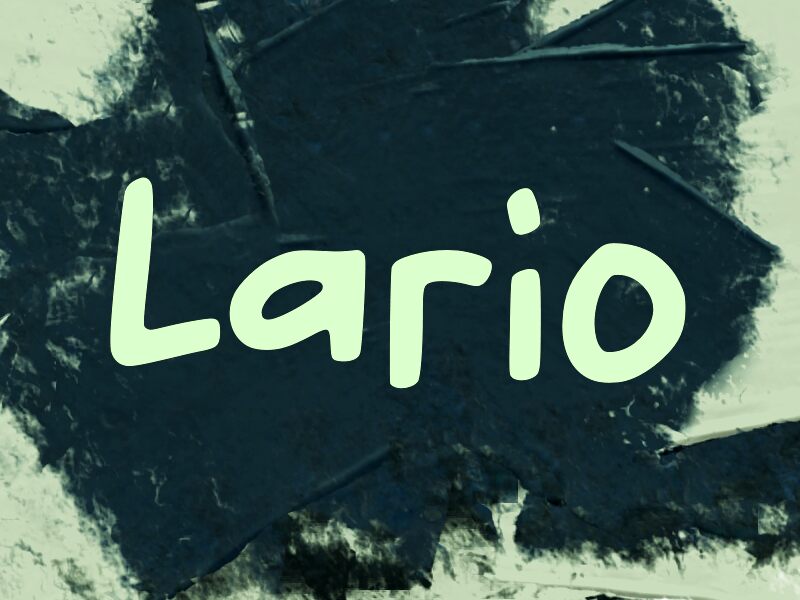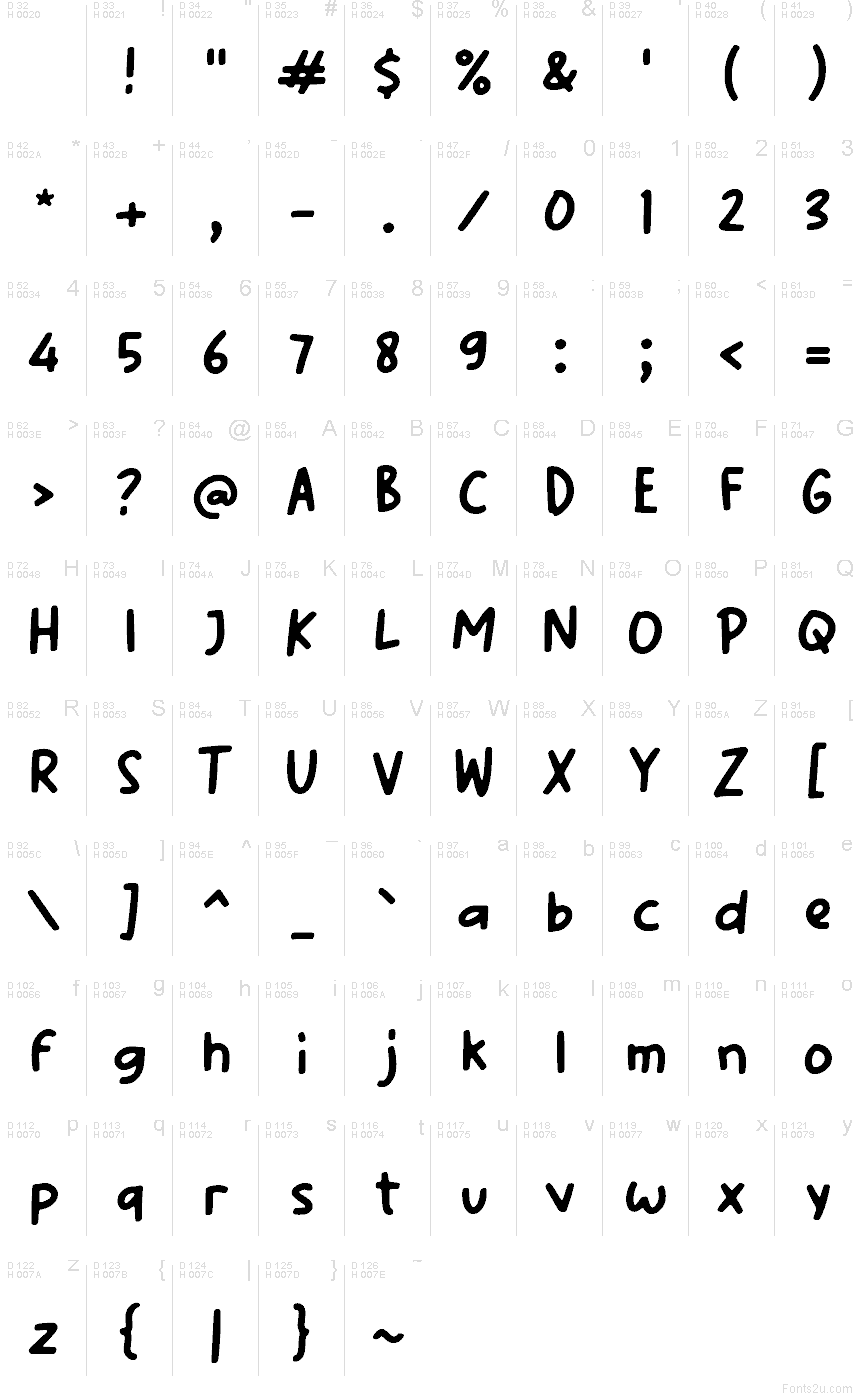
Lario
Lario font by wep is a free cartoon display typeface with that thick, inky, marker-drawn energy you usually only get from hand lettering. Its chunky, rounded strokes and slightly uneven rhythm feel bouncy and friendly, like letters sketched on a whiteboard or a comic strip margin. There’s a soft, tactile wobble to each shape that keeps things playful while still staying legible at a glance.
Using Lario, your titles instantly pick up a fun, kid-facing voice without becoming chaotic or messy. This free font shines on children’s book covers, game logos, YouTube thumbnails, birthday invitations, stickers, and toy or snack packaging. Set it big and bold for headings, then pair it with a simple rounded sans serif for body text to keep your layouts clear but full of personality.